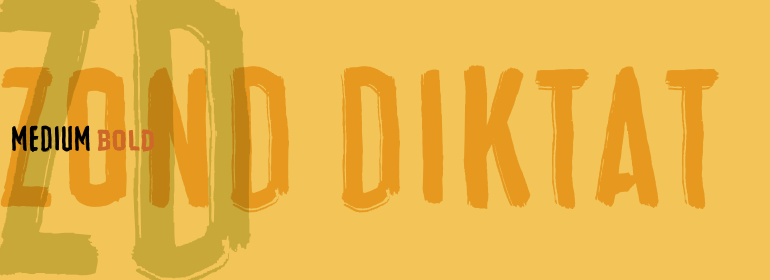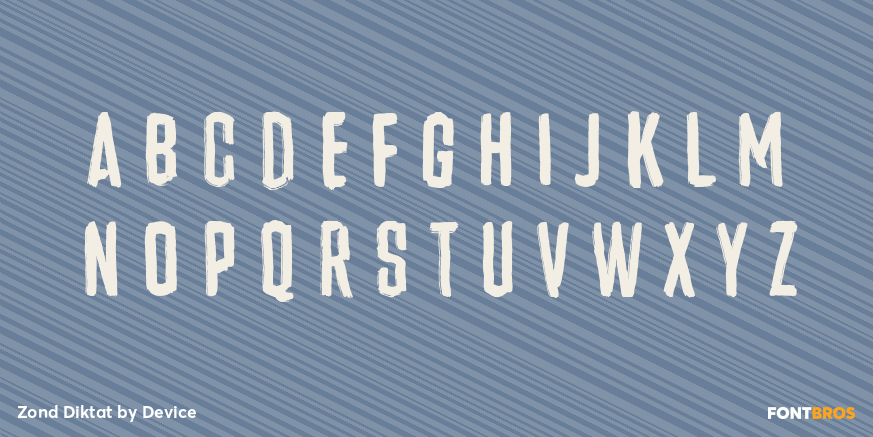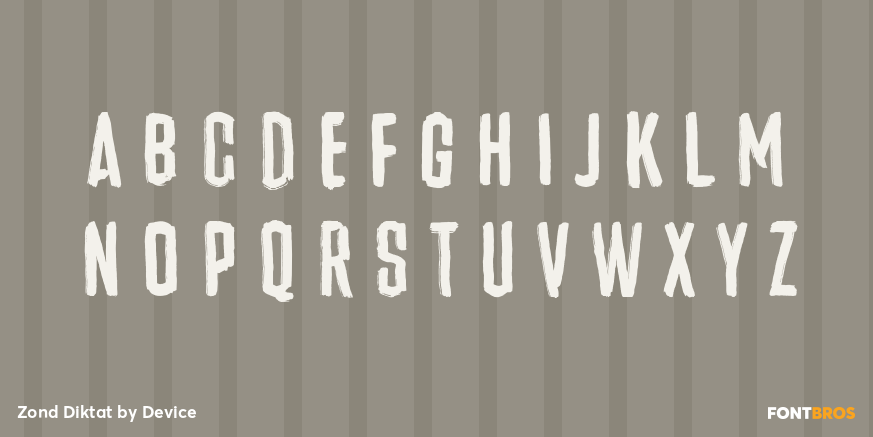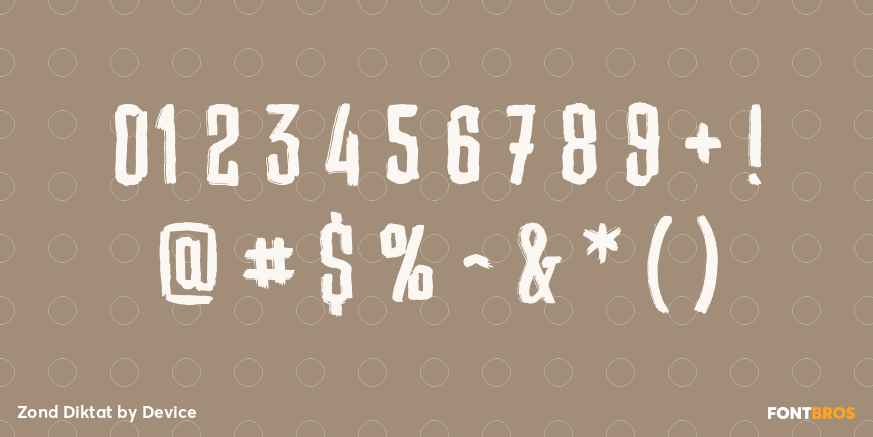
Zond Diktat
Font Family by Device Fonts
Zond Diktat is a distressed, urban-minded sans serif with a gritty, poster-ready presence. Its roughened texture and bold, graphic character give layouts an immediate streetwise energy that feels expressive, loud, and intentionally imperfect.
This family includes 2 styles—Medium and Bold—giving you a compact set of options for dialing in emphasis while keeping a consistent voice. It’s a strong fit for display use where attitude matters, including posters, apparel graphics, branding, packaging, signage, and other attention-grabbing creative work.
Created by Device, this special effect face blends sans serif structure with graffiti-influenced edge, making it especially useful when you want type that feels raw, physical, and visually worn rather than clean and polished.